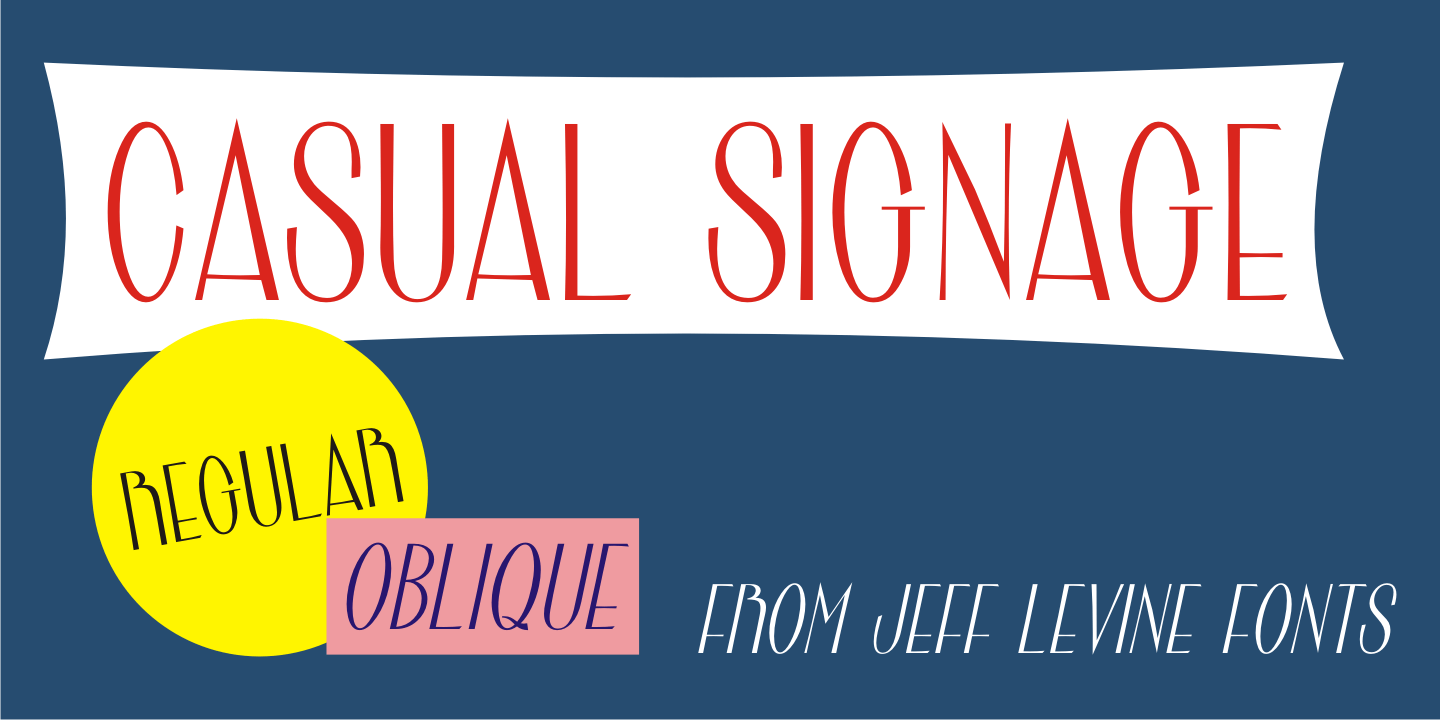
Casual Signage
Alf Becker was a talented sign writer and a prolific contributor of unique alphabets to Signs of the Times magazine.
More than one hundred of his designs were showcased in monthly installments with each new issue of the publication.
One in particular is a casual, free form sans serif design which has been recreated digitally as Casual Signage JNL, and is available in both regular and oblique versions.